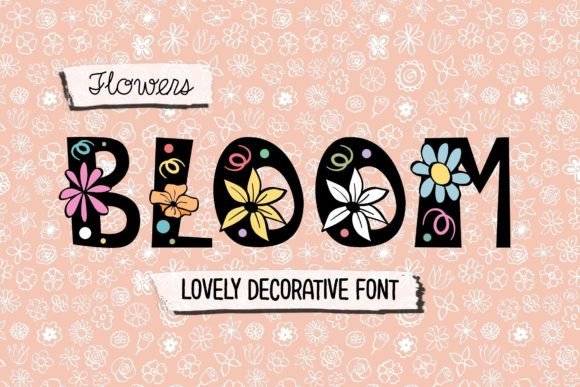
Are you looking for a font that can add a touch of elegance and whimsy to your projects? Look no further than Flowers Bloom Font - the ultimate decorative font for your design needs!
Created by the talented team at 18CC FONTs, Flowers Bloom Font is a unique and charming addition to any designer's toolkit. With its delicate and intricate floral patterns, this font is perfect for creating logos, branding materials, social media graphics, and even crafty DIY projects.
But Flowers Bloom Font isn't just a pretty face - it's also incredibly versatile. Whether you're looking to create a romantic and dreamy atmosphere or a bold and playful vibe, this font can do it all. Its bold strokes and graceful curves will make your text stand out in any context, drawing your viewers' eyes to your message and leaving a lasting impression.